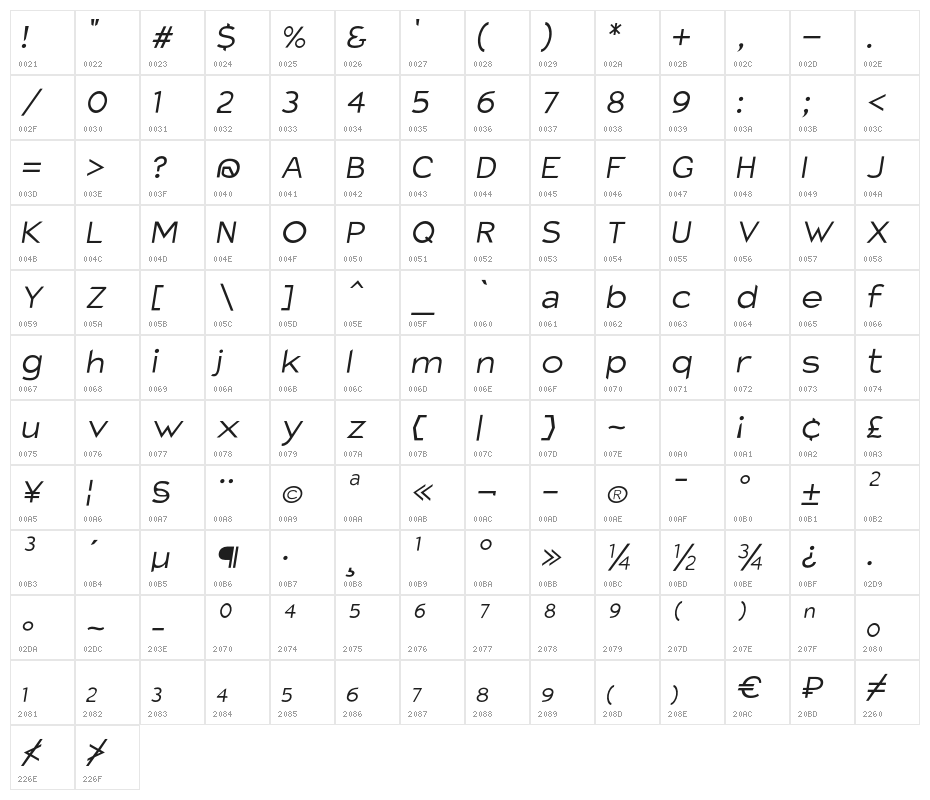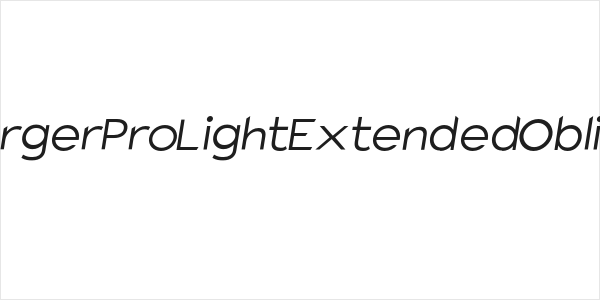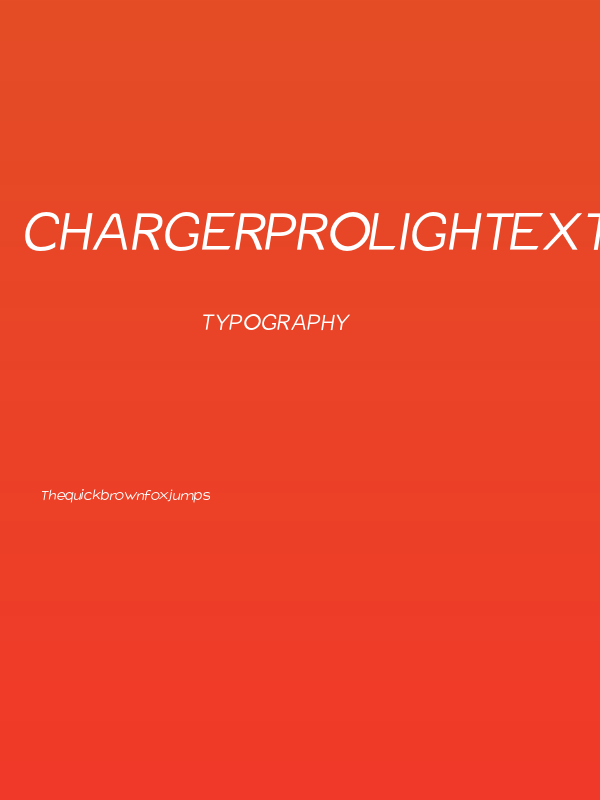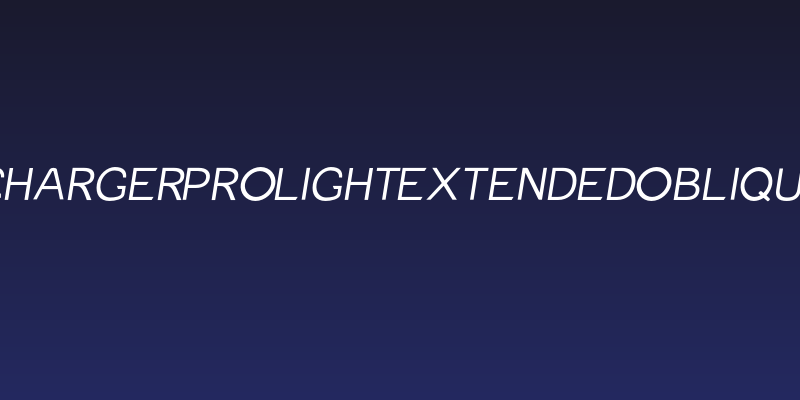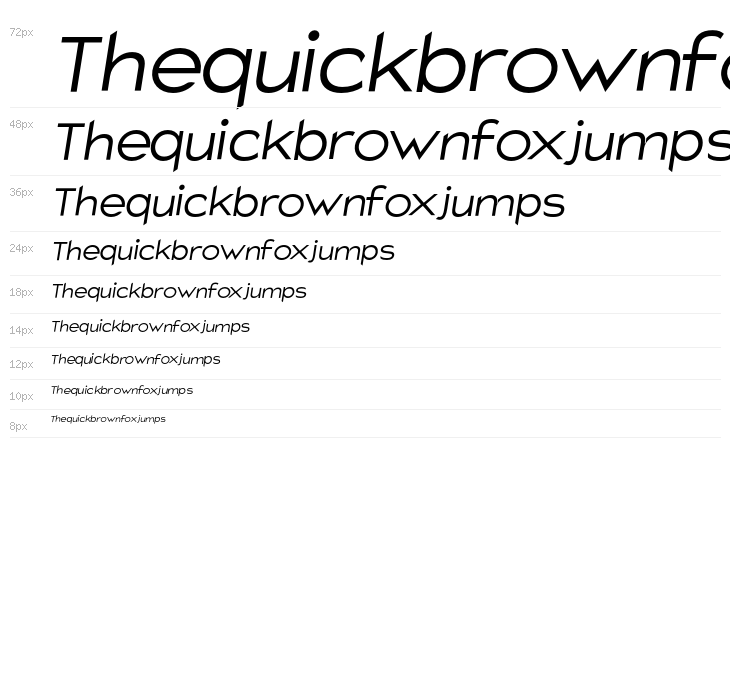
Charger Pro Light Extended Oblique Font
Charger Pro Light Extended Oblique Description
This font exhibits a sleek and modern design with a light weight and extended width, giving it a spacious and airy appearance. The oblique style adds a dynamic and forward-leaning character, enhancing its contemporary feel. The characters are well-proportioned with a consistent stroke width, contributing to its clean and streamlined look. The uppercase letters are bold and assertive, while the lowercase letters maintain a smooth and elegant flow. The numerals are clear and easily distinguishable, making them suitable for various applications. Special characters are included, providing versatility for different design needs. Overall, this font combines modern aesthetics with functional design, making it suitable for a wide range of creative projects.
| Use Case | Headlines, Logos, Digital Media |
| Proposed Projects | Ideal for branding, advertising, digital media, and editorial design projects. |